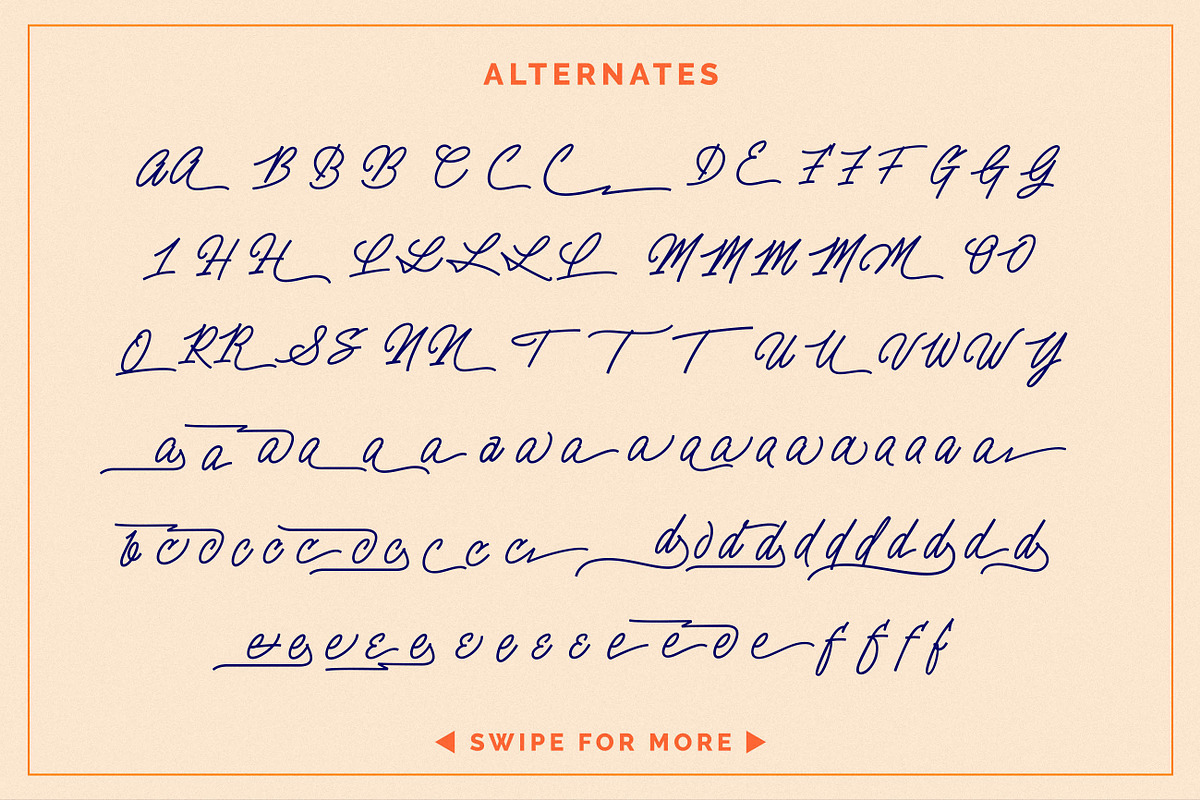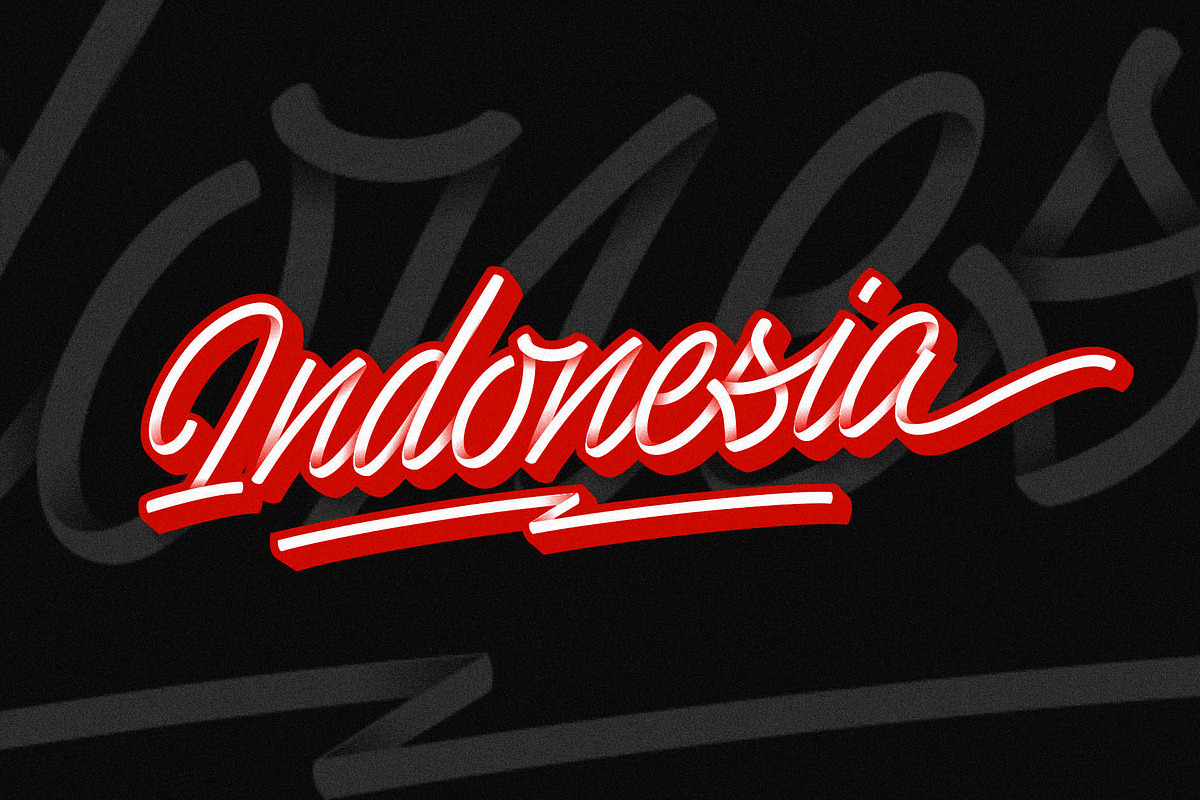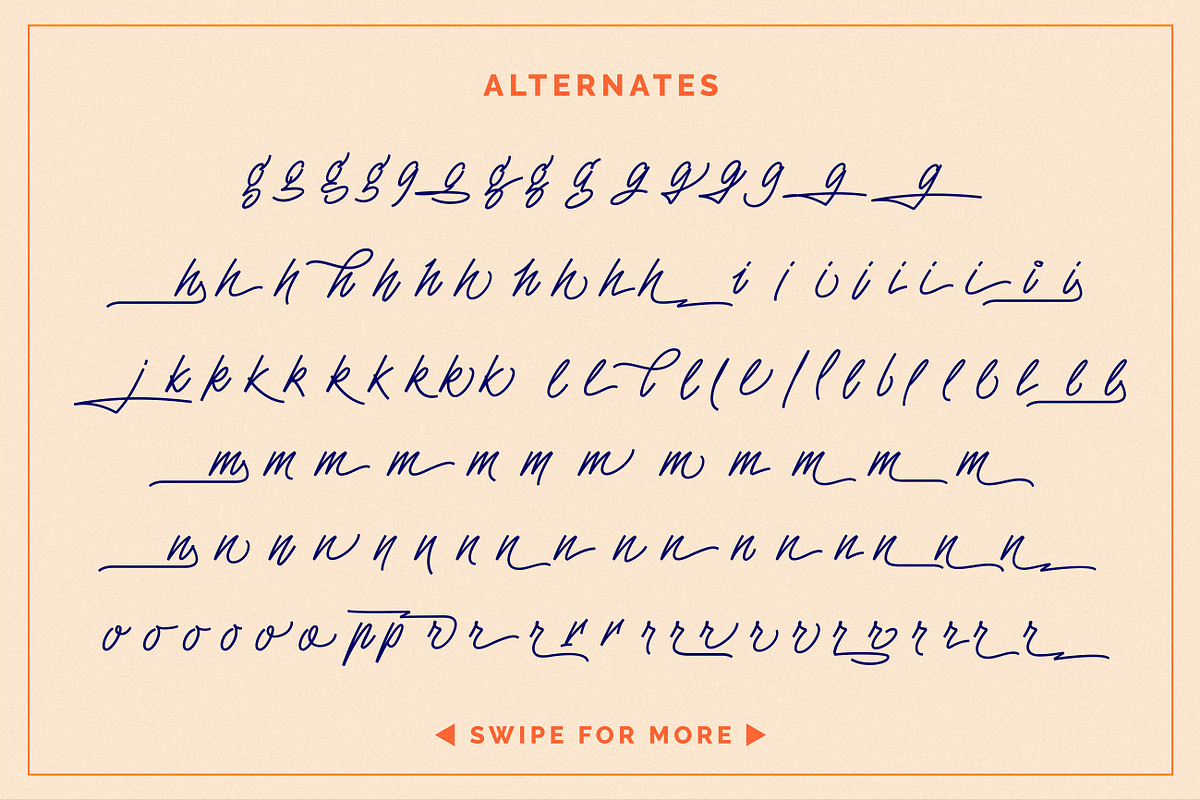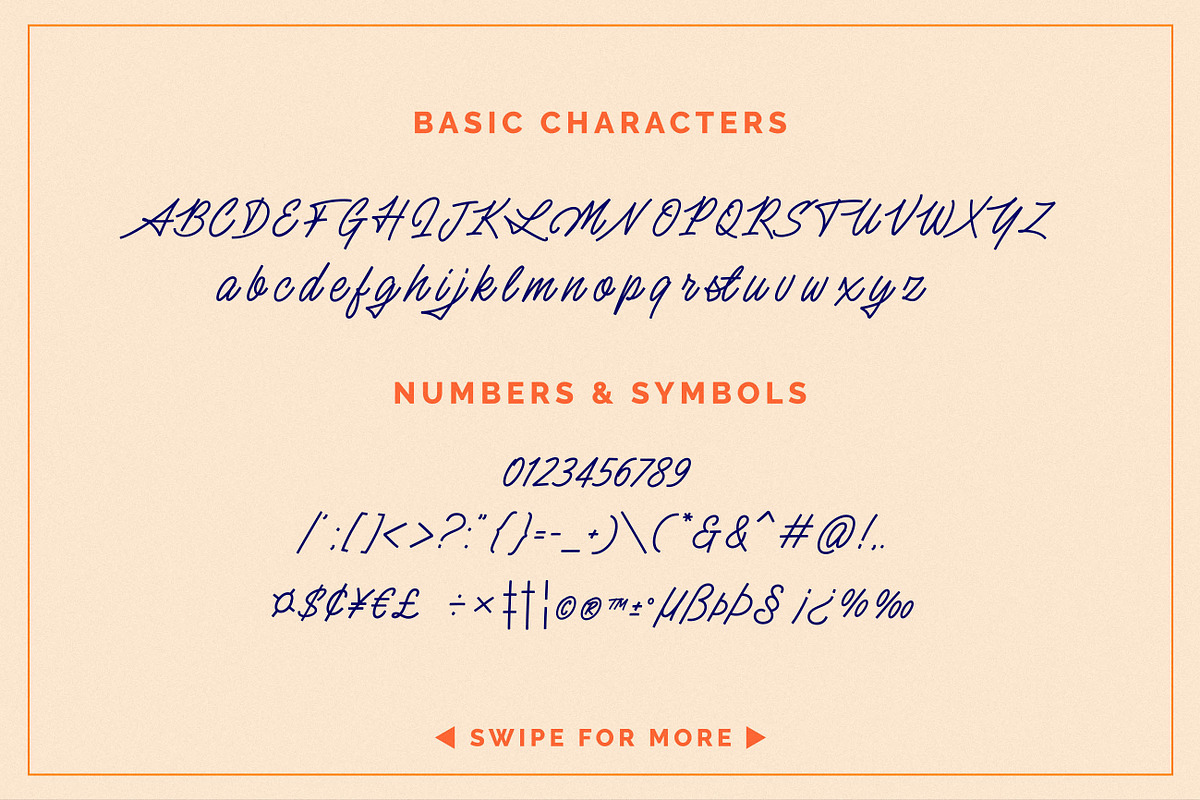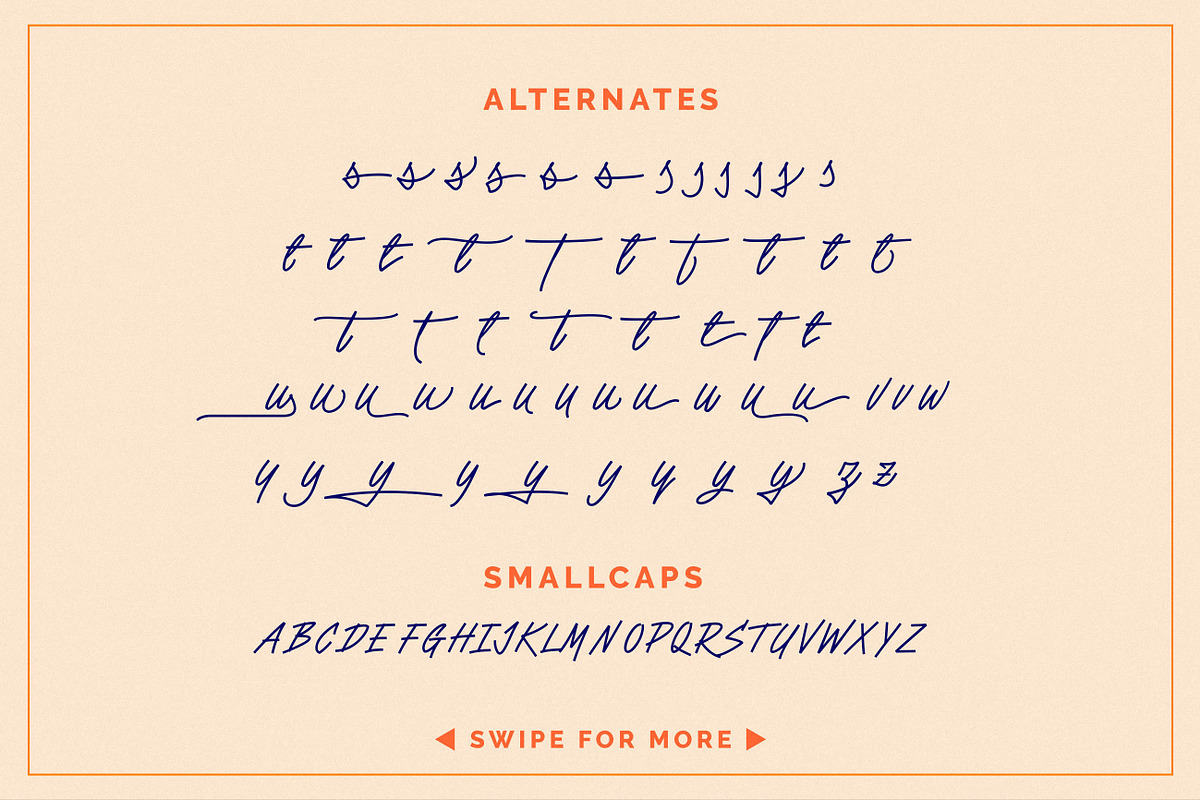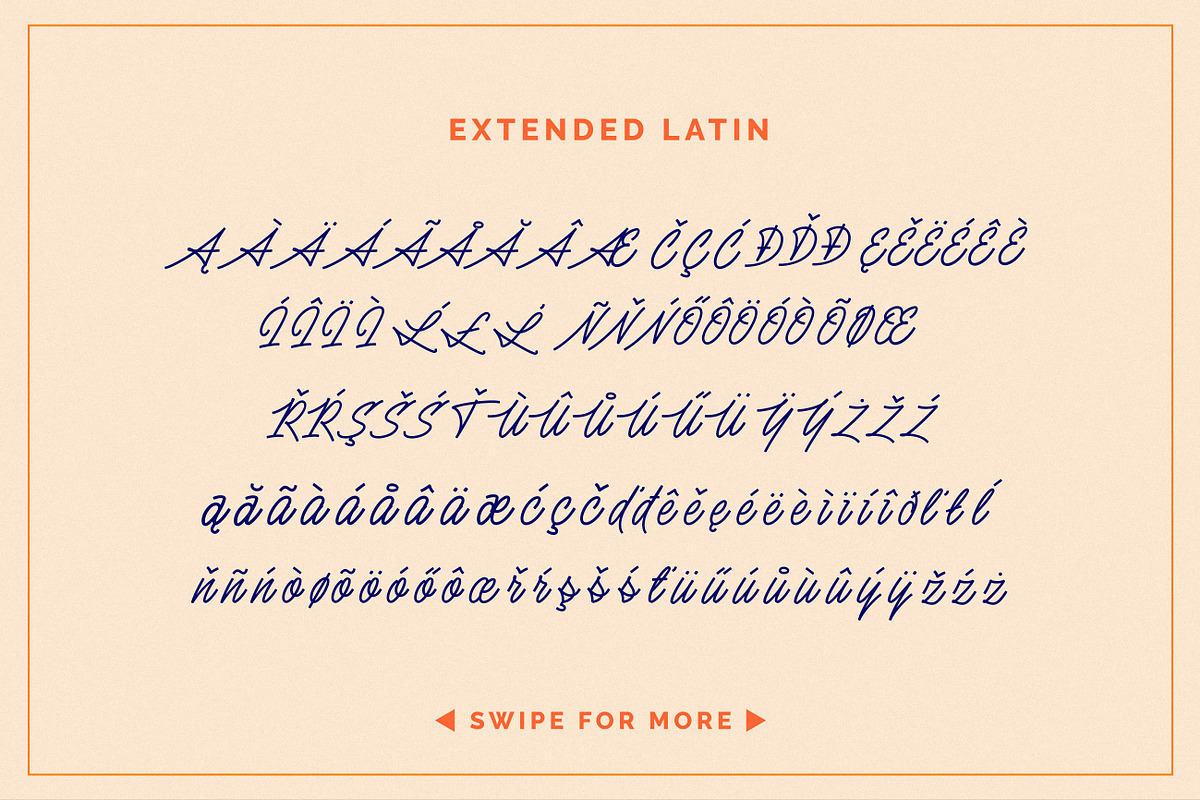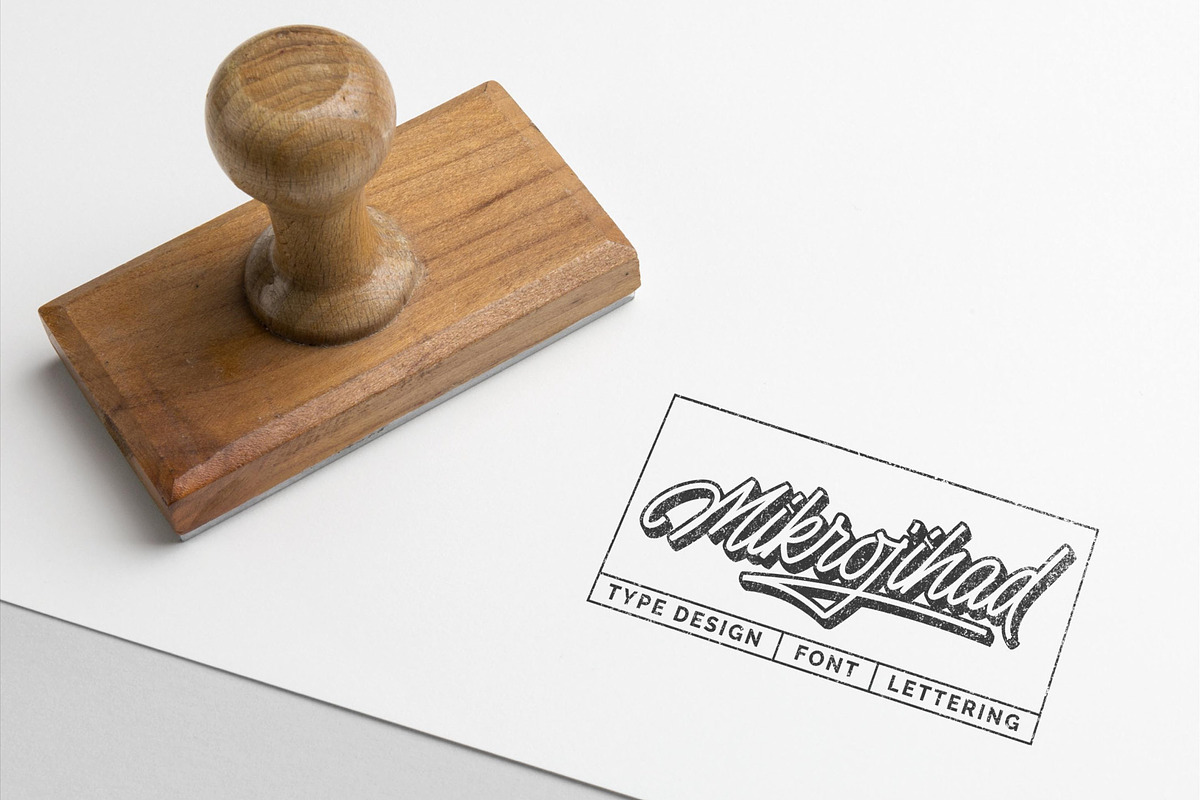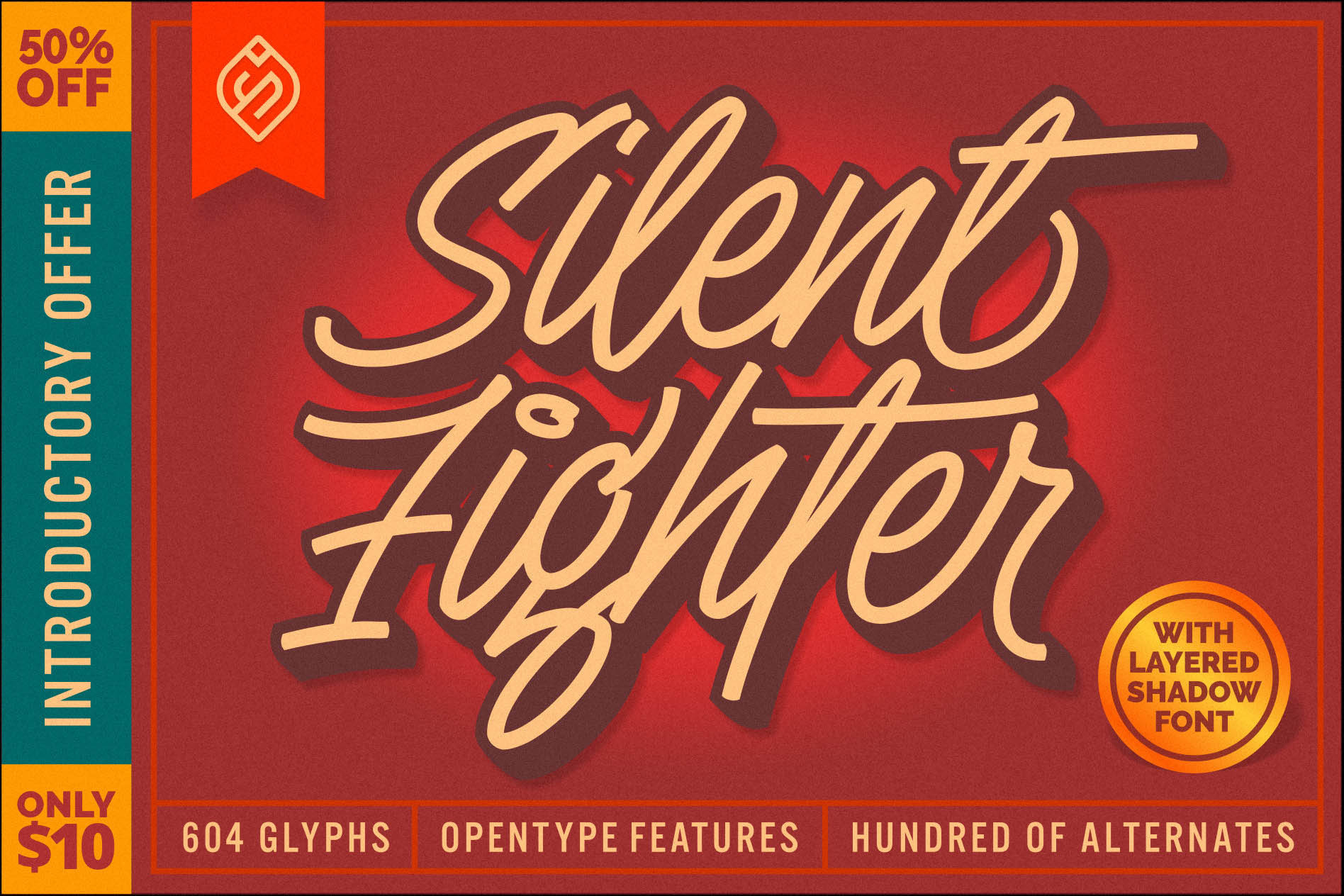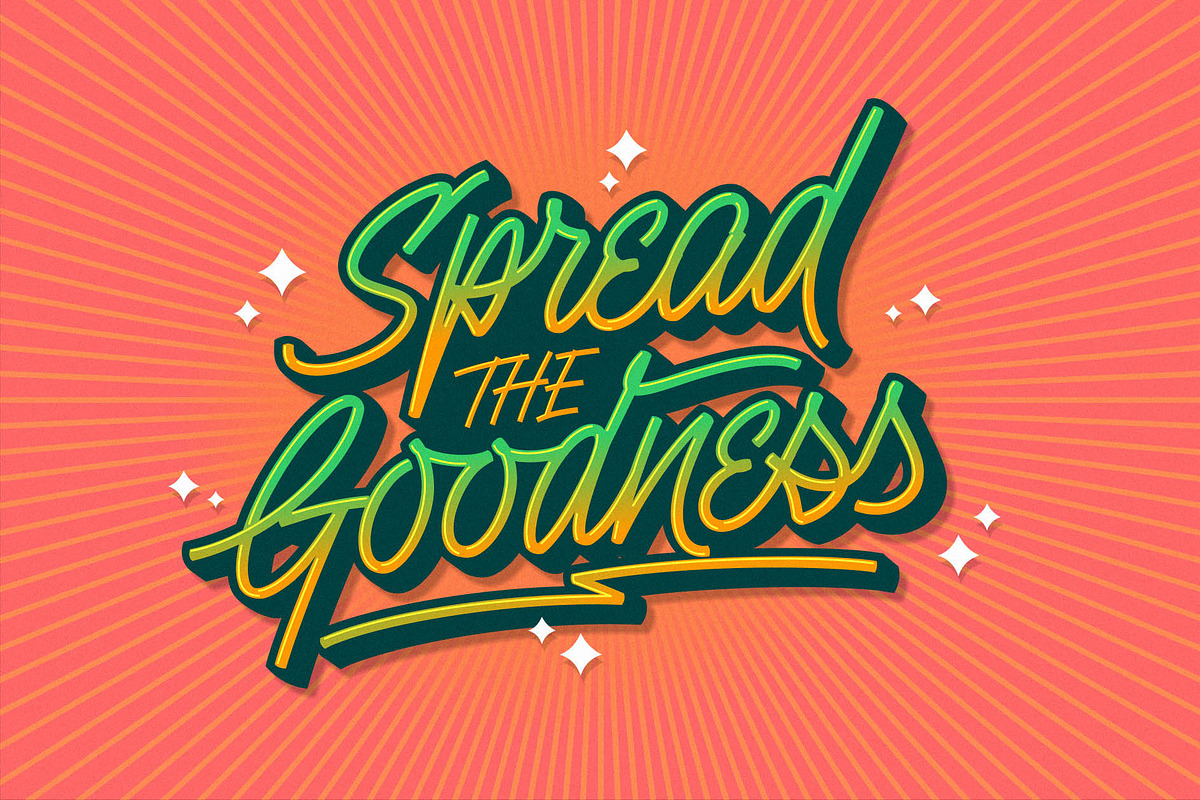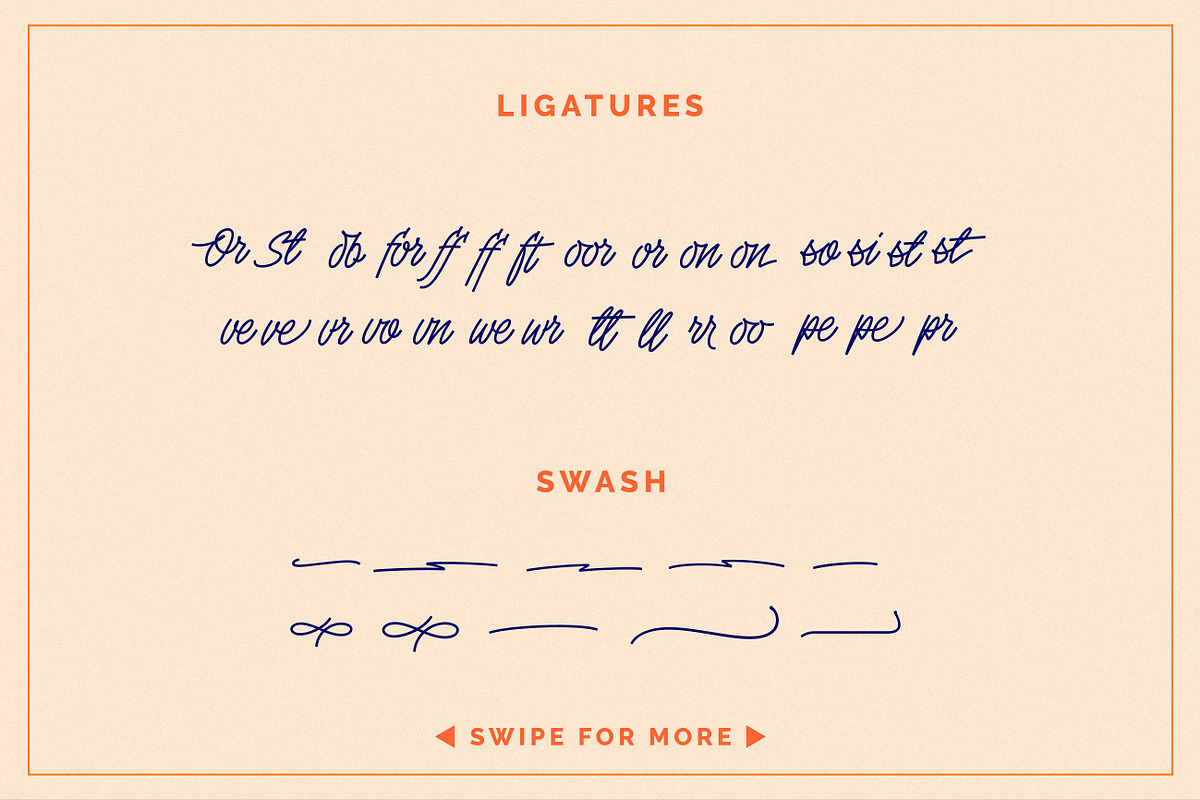
Silent Fighter - 3D Layered Font
Hello, This is our very first typeface after almost 2 years off from the industry.
So, This Font called Silent Fighter, A very different - versatile monoline script which built in 3D style in 2 layered font system. Packed with OpenType Features, contain totally 604 Glyphs with hundred of alternates you can play with, to create a cool typography for your all graphic design needs.